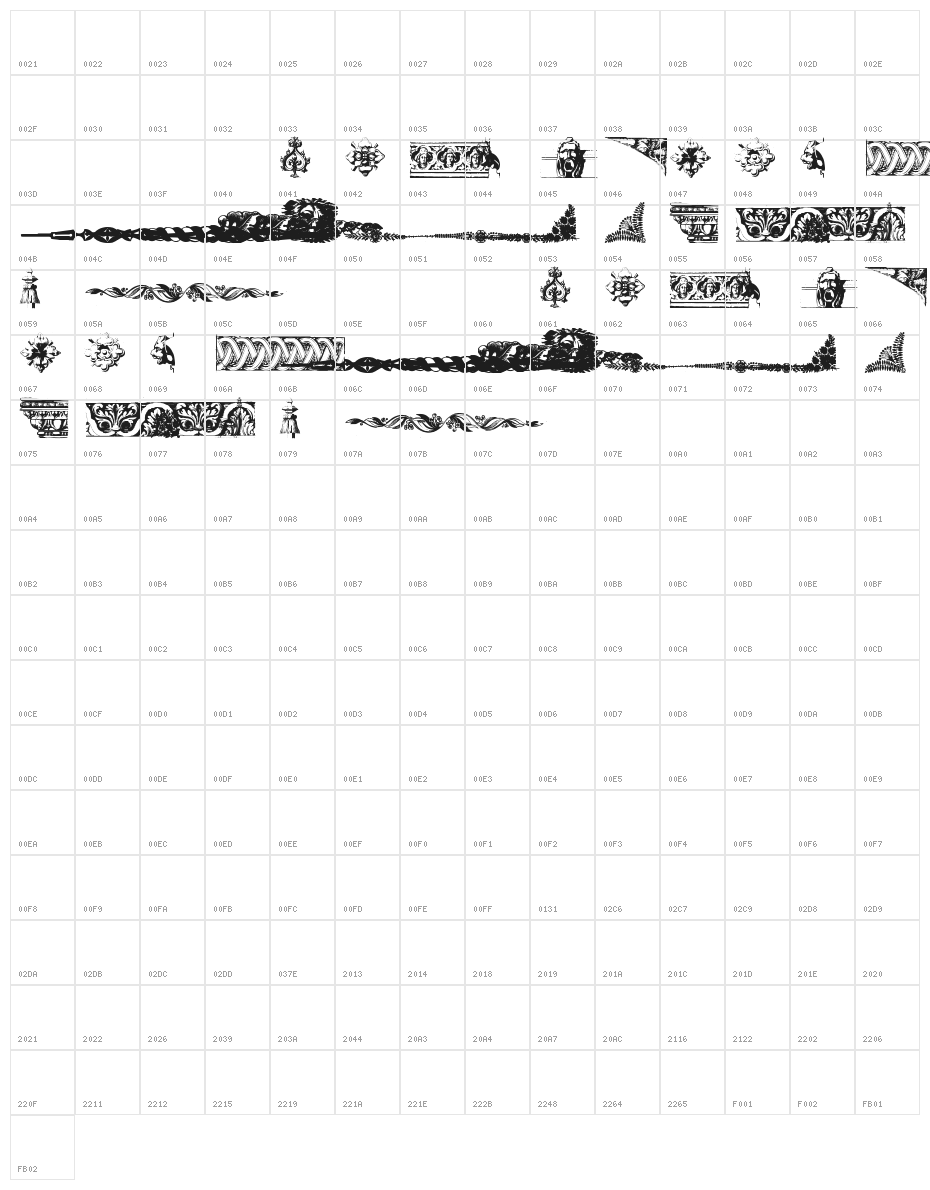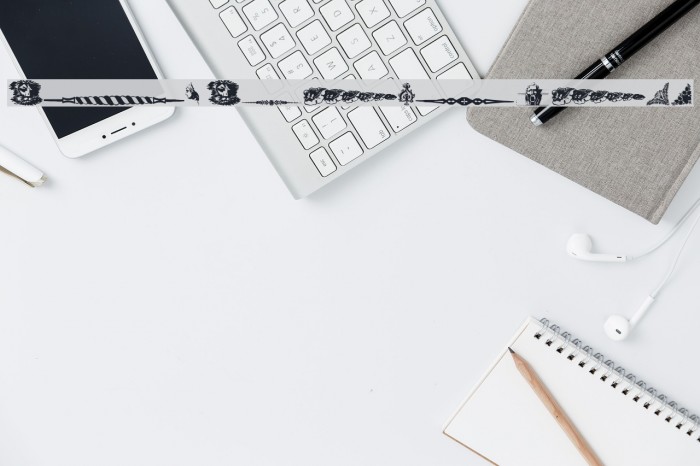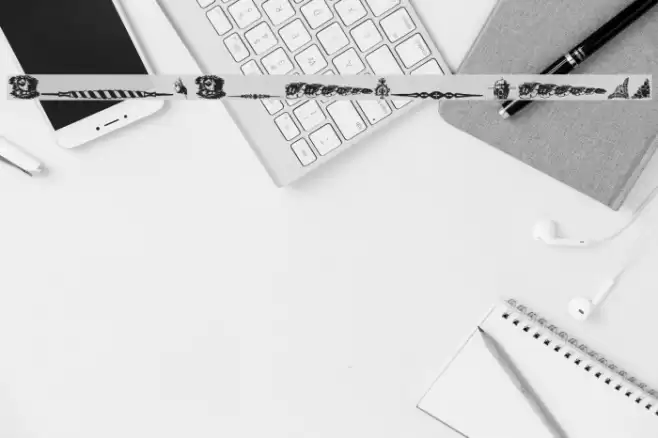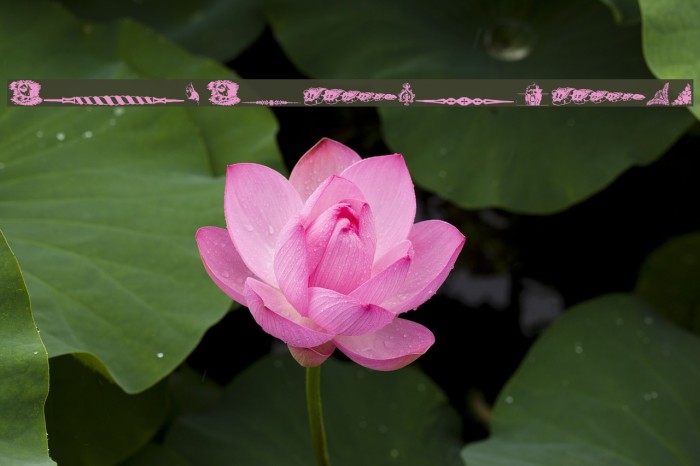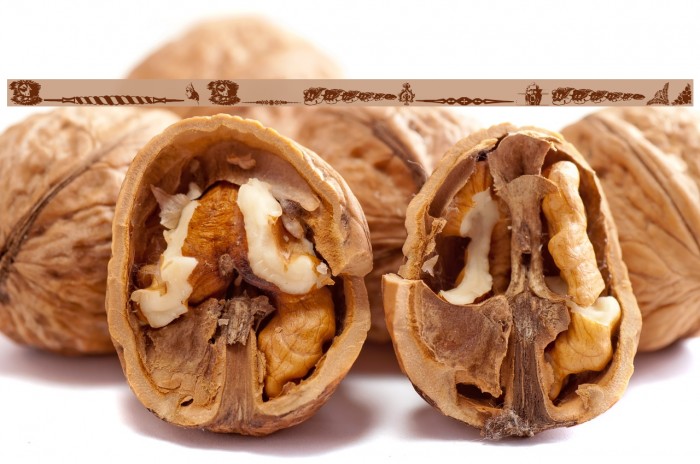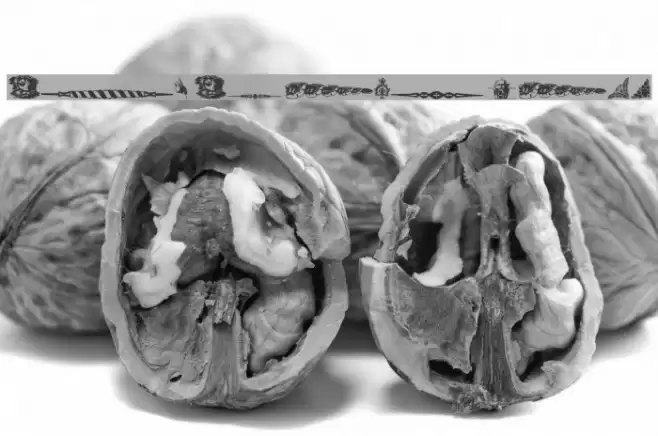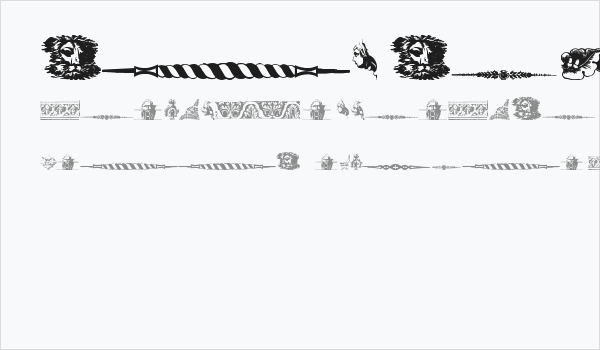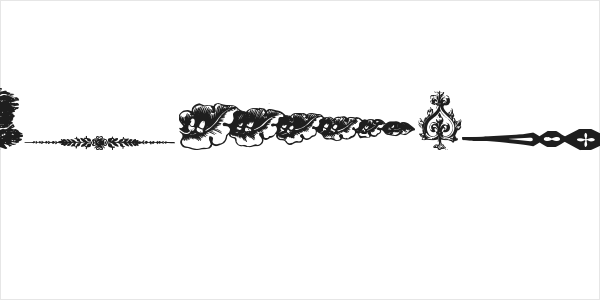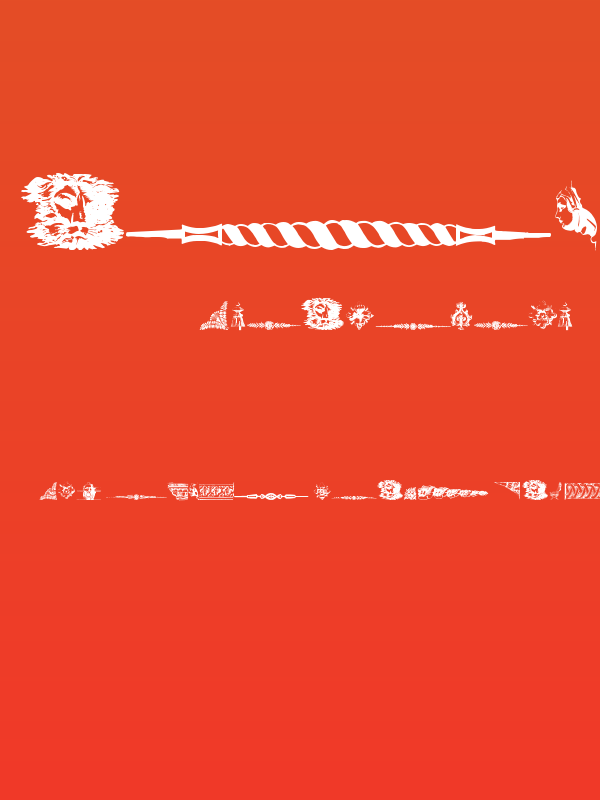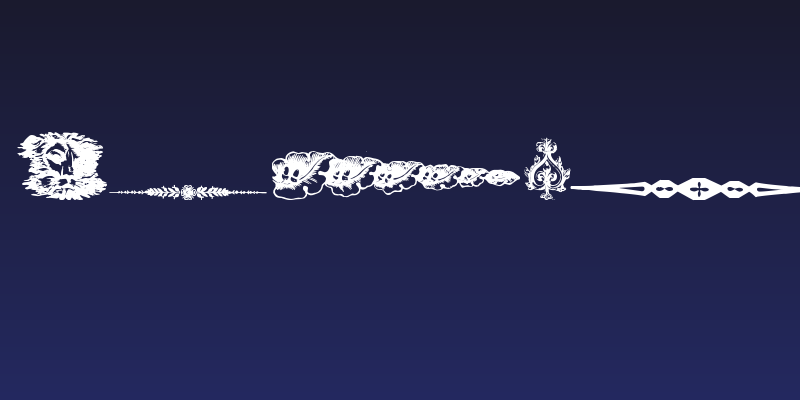
old ornaments Font
old ornaments Description
Highly decorative, intricate ornamental designs with vintage flourishes and detailed embellishments, reminiscent of old book borders or classical engravings. The elements are linear, symmetrical, and feature a variety of motifs such as leaves, swirls, and geometric patterns.
| Overall Style | Vintage, Decorative |
| Use Case | Borders, Dividers, Decorative accents |
| Proposed Projects | Wedding invitations, certificates, book covers, decorative dividers, vintage-themed posters, packaging. |